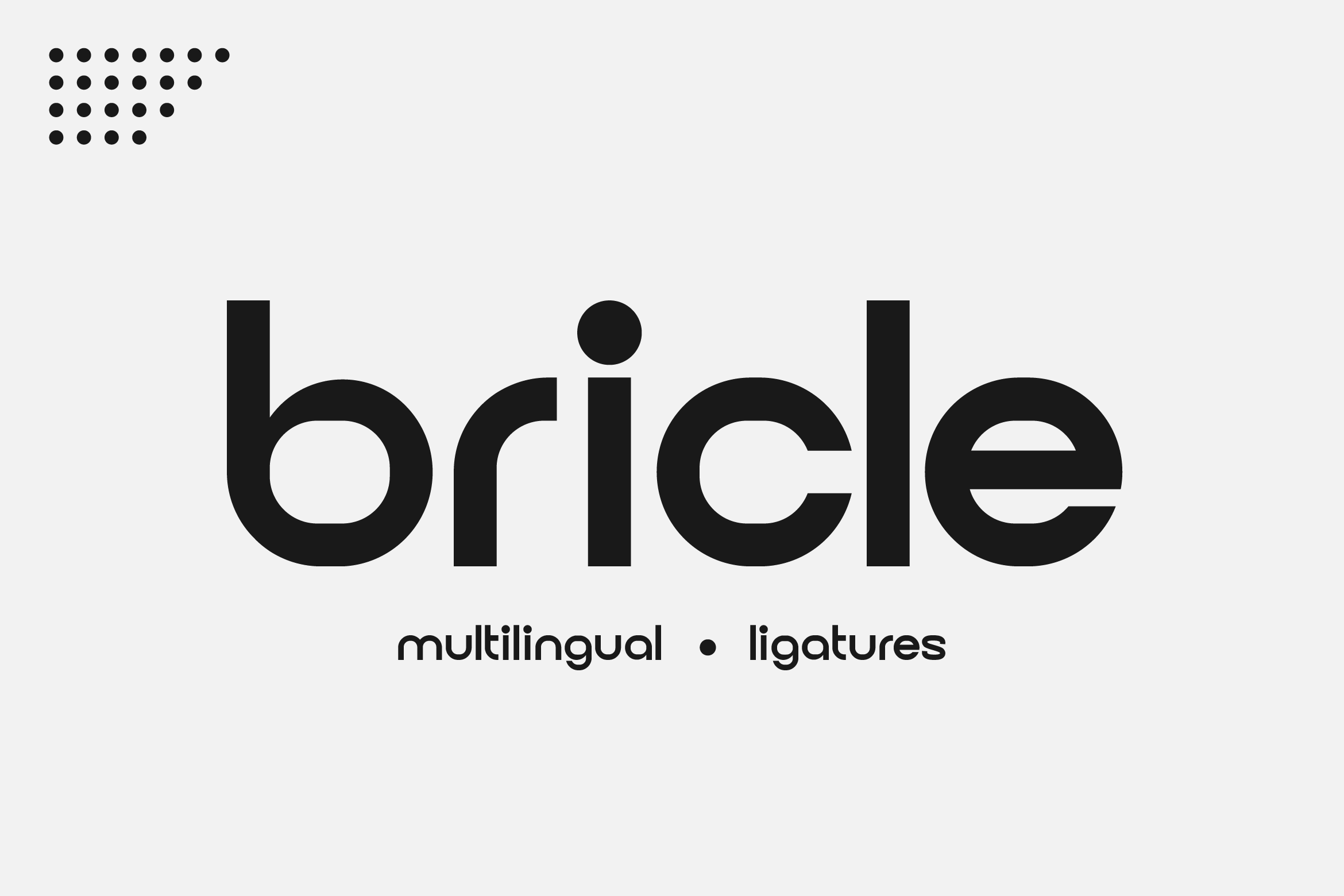
- Bricle Sans Serif Logo Font
BricIe is a striking display font designed specifically for logos, branding, and bold visual statements. With its sharp edges, clean lines, and modern proportions, BricIe delivers a strong and memorable identity for any brand.
Perfect for creating standout wordmarks, packaging, posters, or social media graphics, this font combines minimalism with a touch of bold creativity. Its contemporary design ensures versatility while maintaining a premium, polished look.
BricIe includes uppercase and lowercase letters, numerals, punctuation, and multilingual support for global usability. Its aesthetic makes it suitable for fashion labels, tech startups, lifestyle brands, and any project that demands a bold, professional impression.
Create a brand identity that speaks with confidence and clarity — with BricIe, the logo font that turns simplicity into strength.